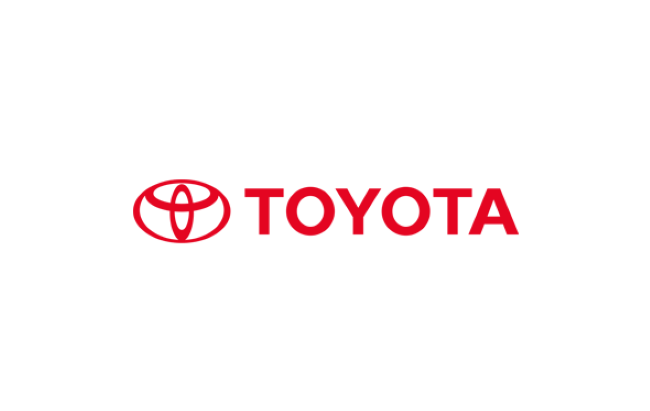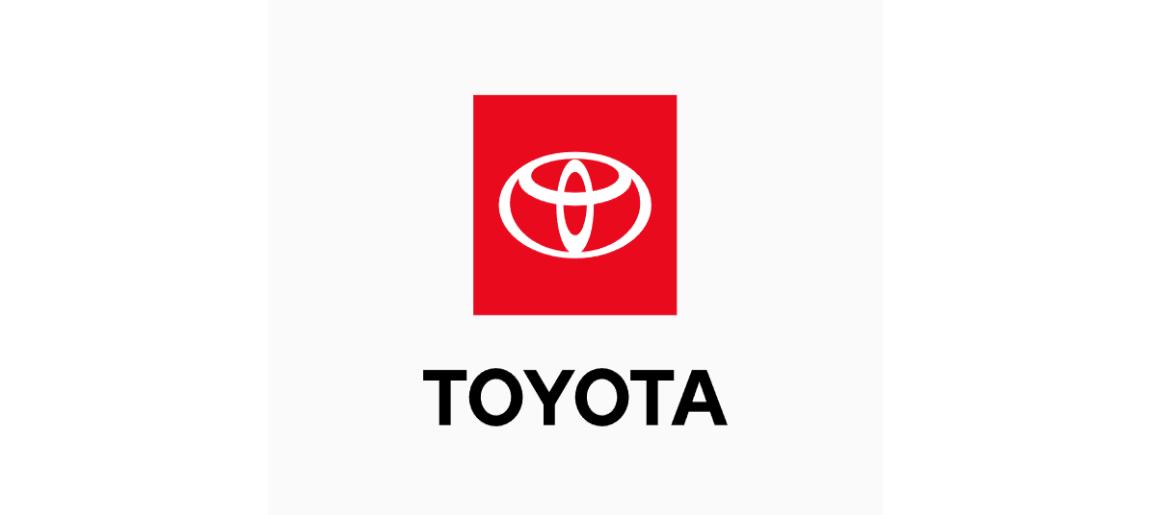
Toyota Font
Toyota Font has always impressed me because of how dependable and professional it looks. Whenever I see the Toyota logo or their advertising, I realize the typeface plays a big role in shaping the brand’s trustworthy image. In my opinion, Toyota Font reflects the same qualities as their cars—reliability and strength.The main typeface used is Toyota Type, a custom-designed font that I think captures the brand’s identity perfectly. It’s bold, clean, and easy to read, which makes it effective across signage, digital platforms, and print. From my analysis, Toyota Font is not only practical but also carries a sense of heritage, tying into the company’s long-standing reputation.
Compared to other automotive brands, Toyota Font stands out because it balances modernity with tradition. I believe that’s why it works so well—it doesn’t just decorate the brand, it reinforces its values. To me, Toyota Type proves that the right font can drive a brand’s message just as powerfully as its products.